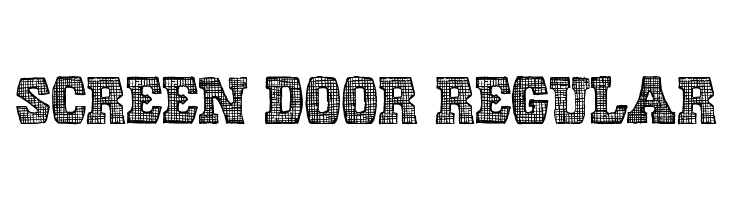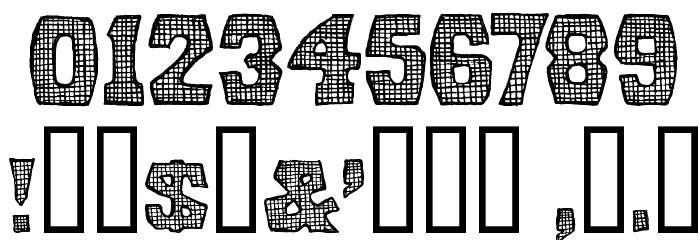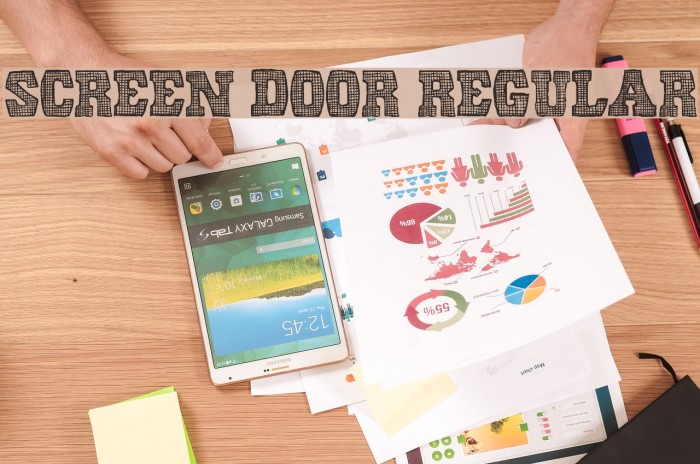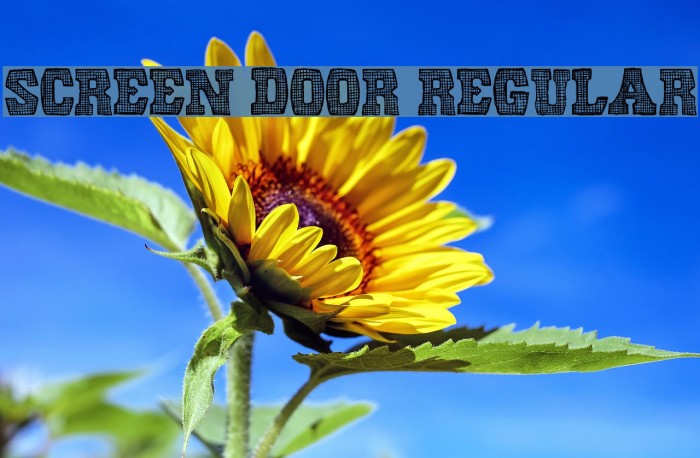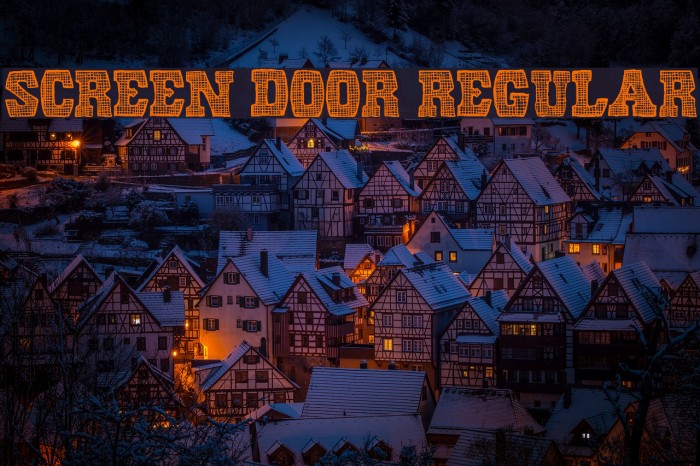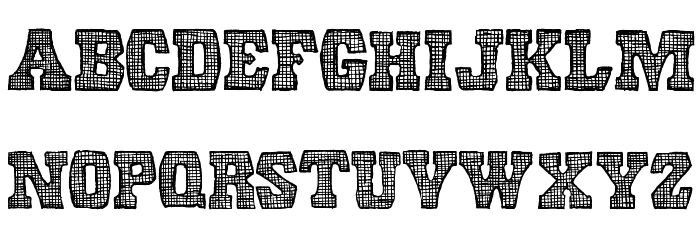
Screen Door Regular Font
This font features a unique, decorative style with a mesh-like pattern filling each character. The bold, uppercase letters are designed with a playful and artistic flair, making them stand out with their intricate detailing. The characters have a consistent width and height, providing a uniform appearance across the alphabet. The numbers and special characters maintain the same design aesthetic, ensuring cohesion throughout. This font's distinct style is eye-catching and memorable, ideal for projects that require a strong visual impact.
A decorative font with a mesh-like pattern and bold, artistic characters.
• Proposed Projects: Ideal for posters, event flyers, album covers, and creative branding projects.
• Category: Decorative/Display
• Bold: Yes
• Italic: No
• Weight: Bold
• Width: Normal
• Character Spacing: Normal
• Contrast: Low
• Overall Style: Decorative
• Use Case: Headlines, Logos